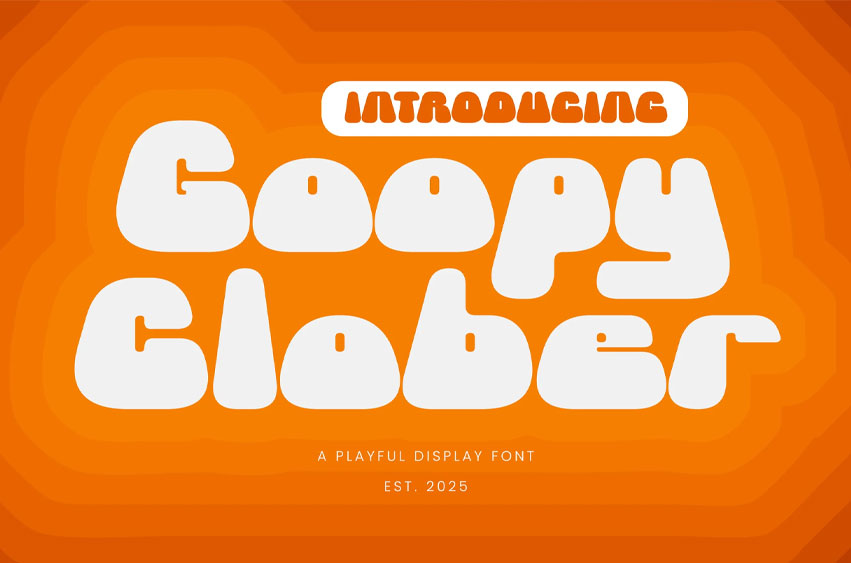
Goopy Clober Font
Goopy Clober Font is a playful, chunky sans-serif typeface that brings a sense of whimsy and bold energy to any design project. Its rounded letterforms and smooth curves create a friendly and inviting appearance, ensuring that each character, from the striking uppercase to the subtle lowercase, contributes to a charming and cohesive look.
This font exudes a unique blend of boldness and creative flair, making it an excellent choice for headlines, branding, and decorative projects. With a design that captures both fun and modernity, Goopy Clober stands out by merging dynamic aesthetics with an approachable, eye-catching style.